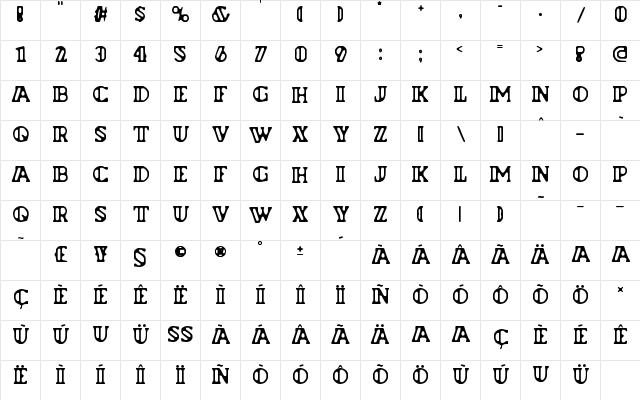
Flyman Regular Free Font
Flyman Regular
Flyman Family
Design Context for Flyman
Flyman is a composed and adaptable typeface that performs quietly and consistently across a wide range of design contexts.